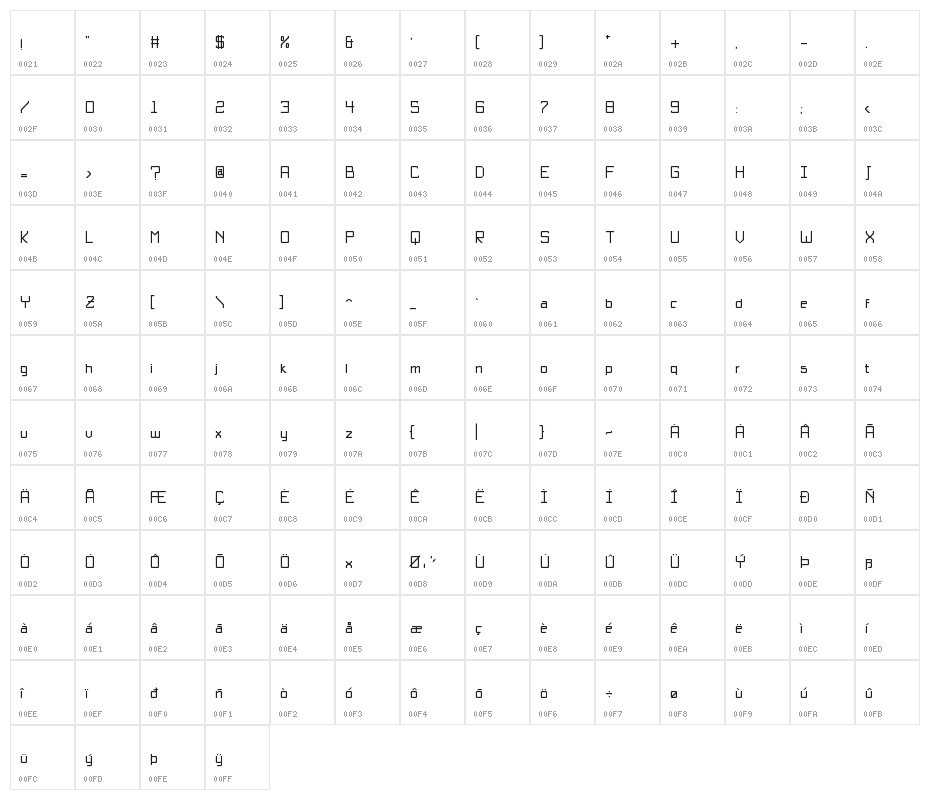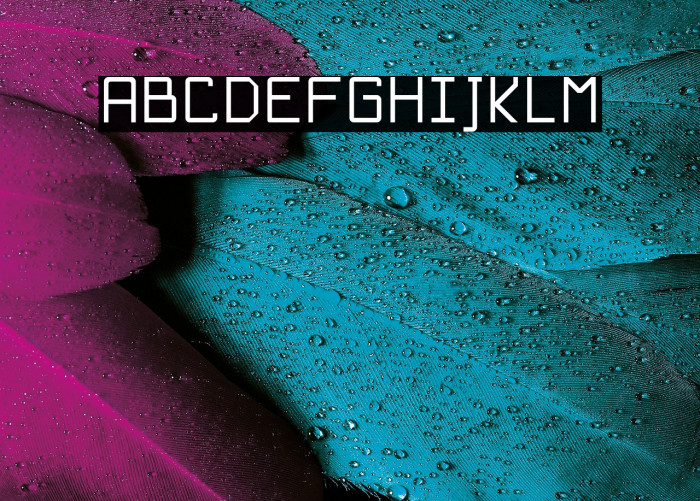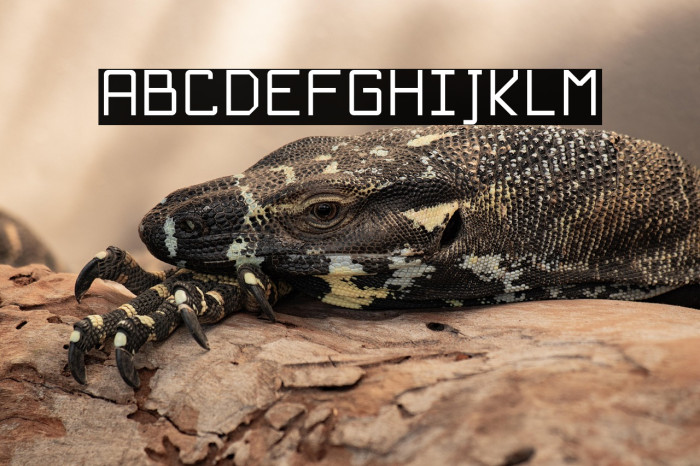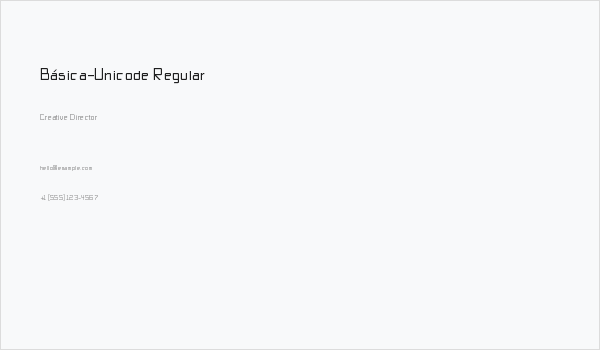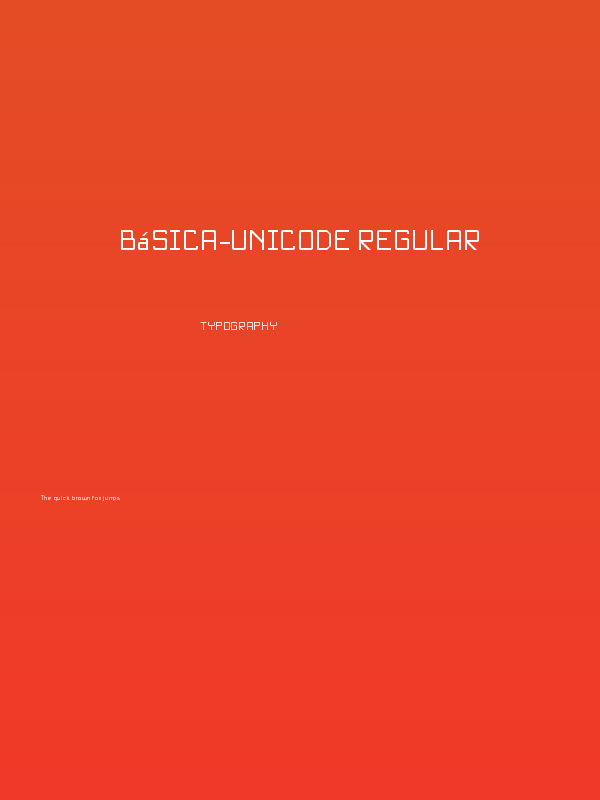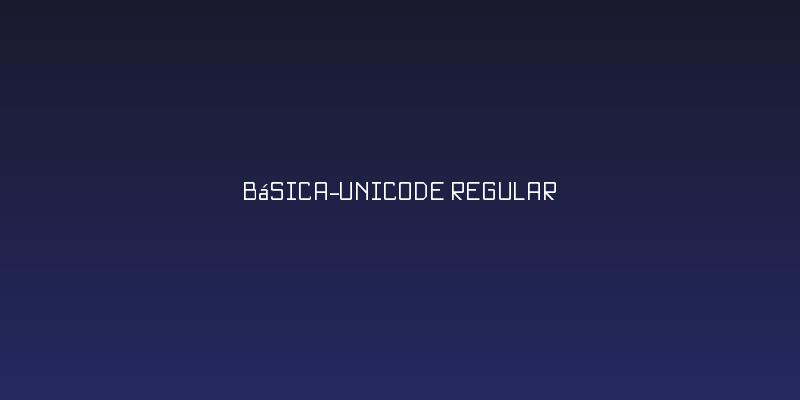
Básica-Unicode Regular Font
Básica-Unicode Regular Description
This font features a geometric and modern design with a monospaced style, characterized by uniform character width. The letters are constructed with straight lines and sharp angles, giving it a technical and digital appearance. The uppercase and lowercase letters maintain a consistent height, enhancing readability and uniformity. Numbers and special characters are designed with the same precision, making it suitable for coding or technical documents. The overall look is clean and minimalistic, with a futuristic touch that is both functional and aesthetically pleasing.
Use CaseCoding, Technical documents, Digital displays
Proposed ProjectsIdeal for coding interfaces, technical documents, digital displays, and modern branding.